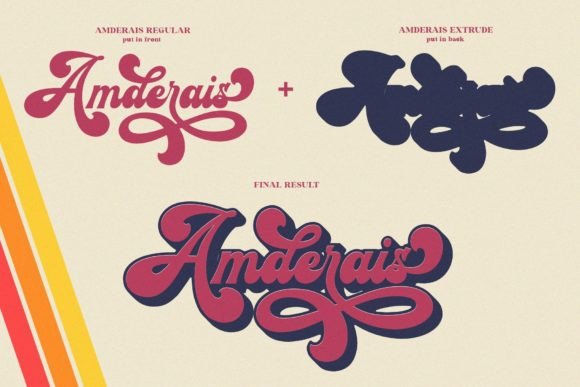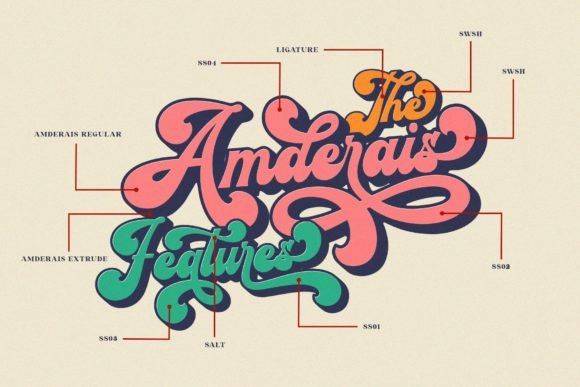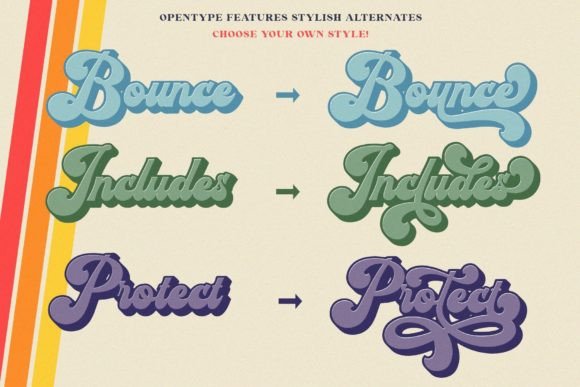
Amderais Font
Give your typographic designs a touch of retro style with Amderais!Amderais is inspired by the famous retro typographic designs of the late 60s to 70s. This font has an extruded version so you can easily create retro effect fonts. This typeface is very suitable for logos, and various other formal forms such as invitations, labels, logos, magazines, books, greeting/wedding cards, packaging, fashion, make-up, stationery, novels, labels, or any advertising purposes.This font is PUA encoded, which means you can access all of the glyphs and swashes with ease!